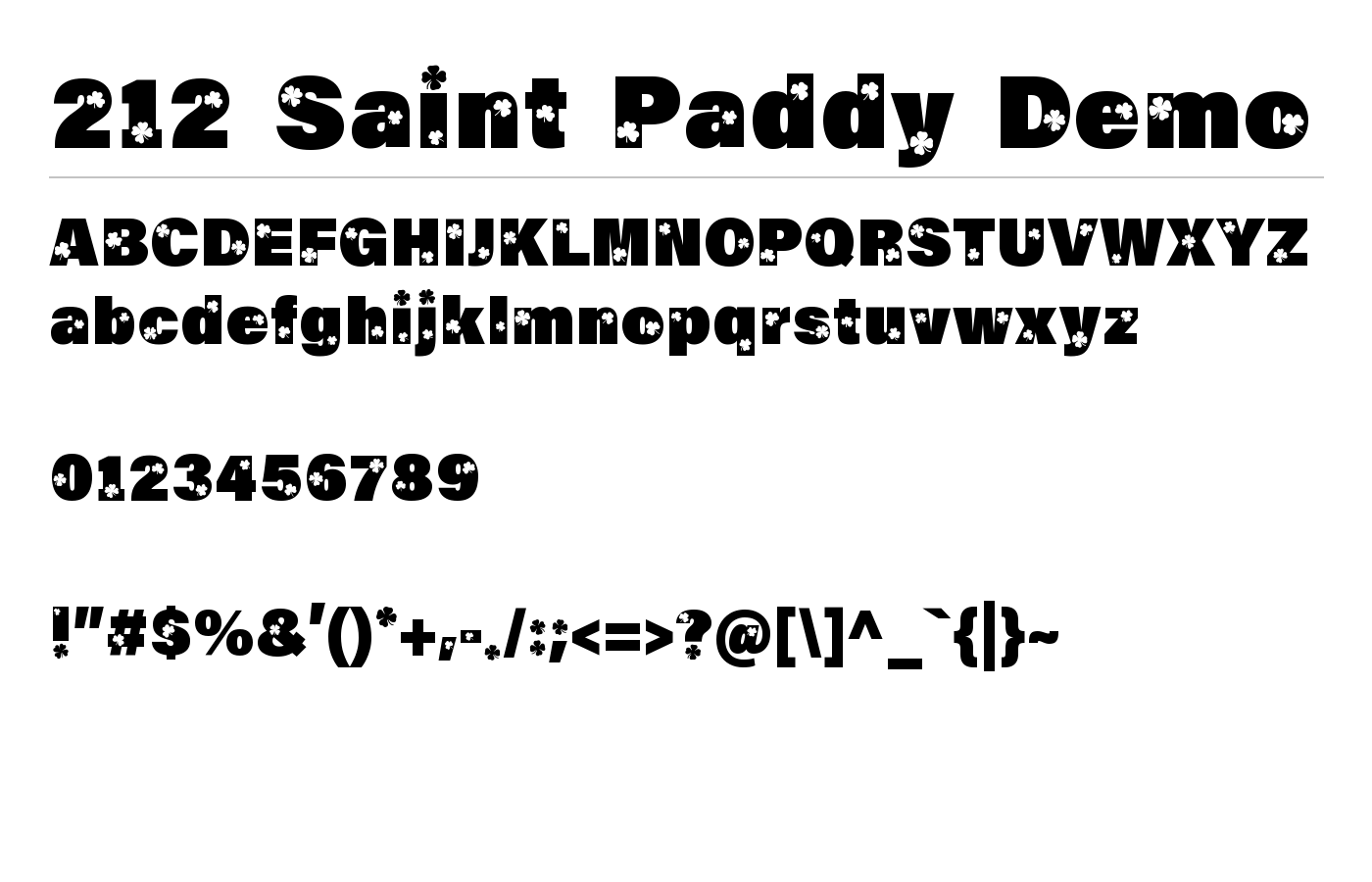
212 Saint Paddy Demo is a bold, playful sans serif font featuring chunky, rounded letterforms adorned with whimsical shamrock shapes, giving it a festive and lively personality. Its heavy weight and tight spacing make it ideal for eye-catching headlines, party invitations, and seasonal branding, especially for St. Patrick’s Day themes. This font blends boldness with fun, making it perfect for creative projects that want to convey joy and celebration.
212 Saint Paddy Demo Font
About 212 Saint Paddy Demo Font